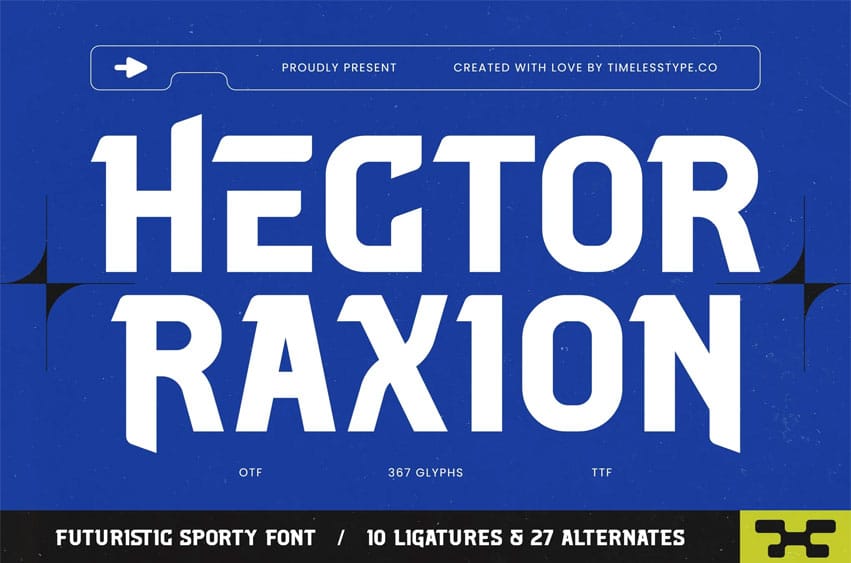
Hector Raxion Font is a futuristic, sporty font built with precision, sharp angles, and fast-forward energy. Designed for high-impact visuals, this typeface brings a bold digital feel ideal for esports branding, racing themes, sci-fi interfaces, tech posters, gaming covers, and dynamic headline compositions.
With 10 ligatures and 27 alternates, Hector Raxion gives you flexible options for crafting unique logotypes, aggressive titles, and modern visual identities. Its geometric construction and aerodynamic cuts deliver a clean, powerful, and mechanical tone that feels engineered for speed.
Whether you’re building competitive sports graphics, tech event branding, UI displays, futuristic packaging, or bold promotional materials, Hector Raxion brings a high-performance edge to every design.